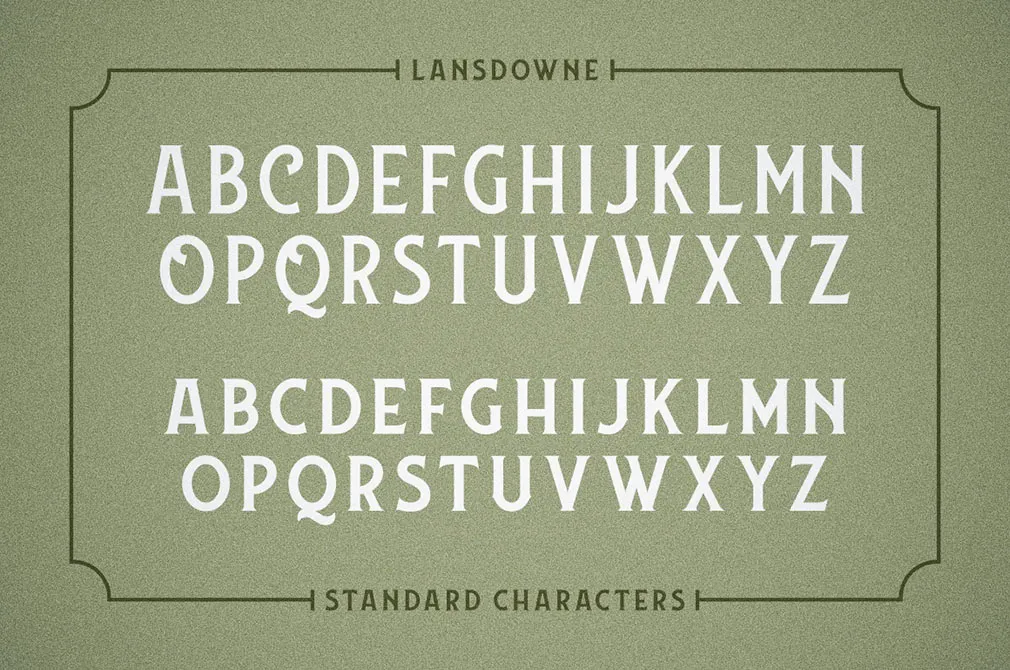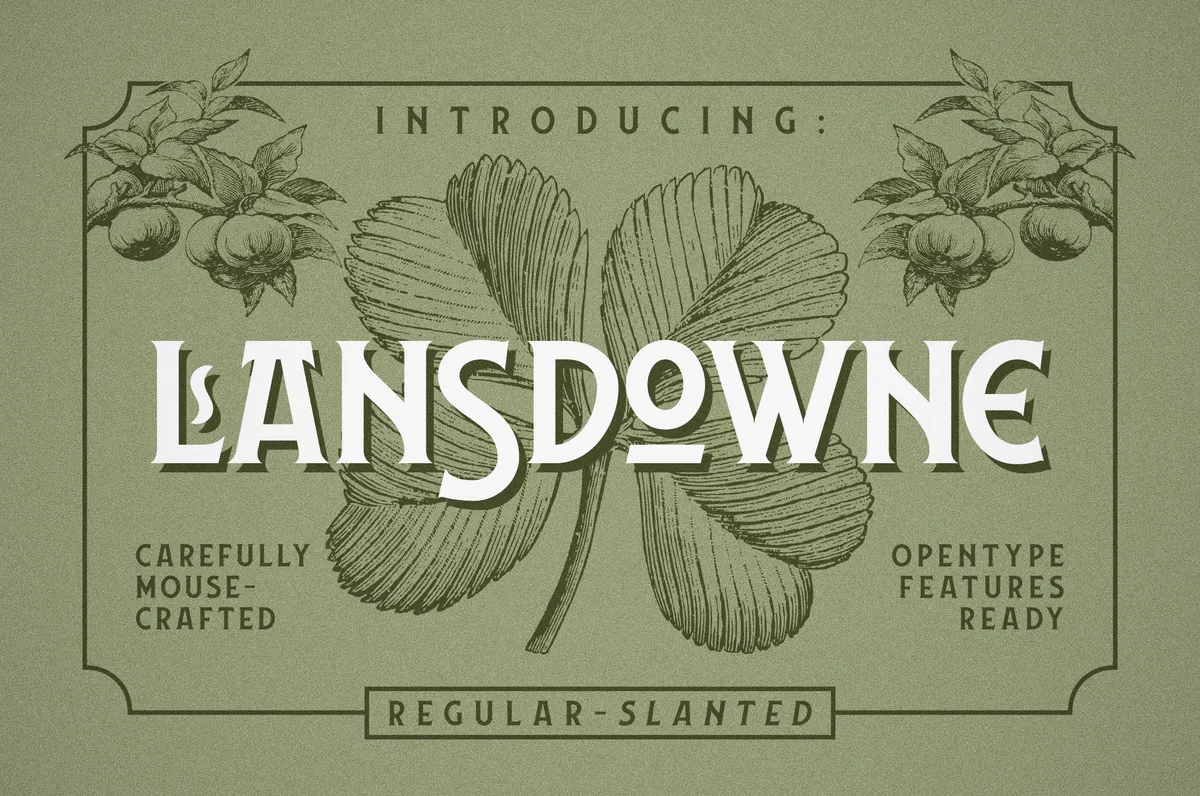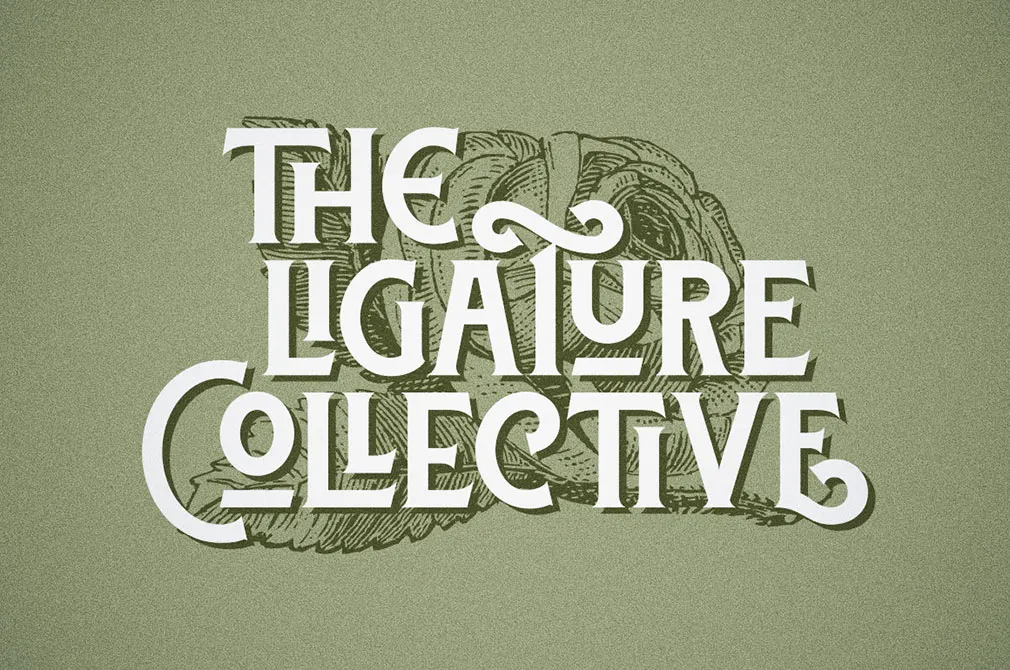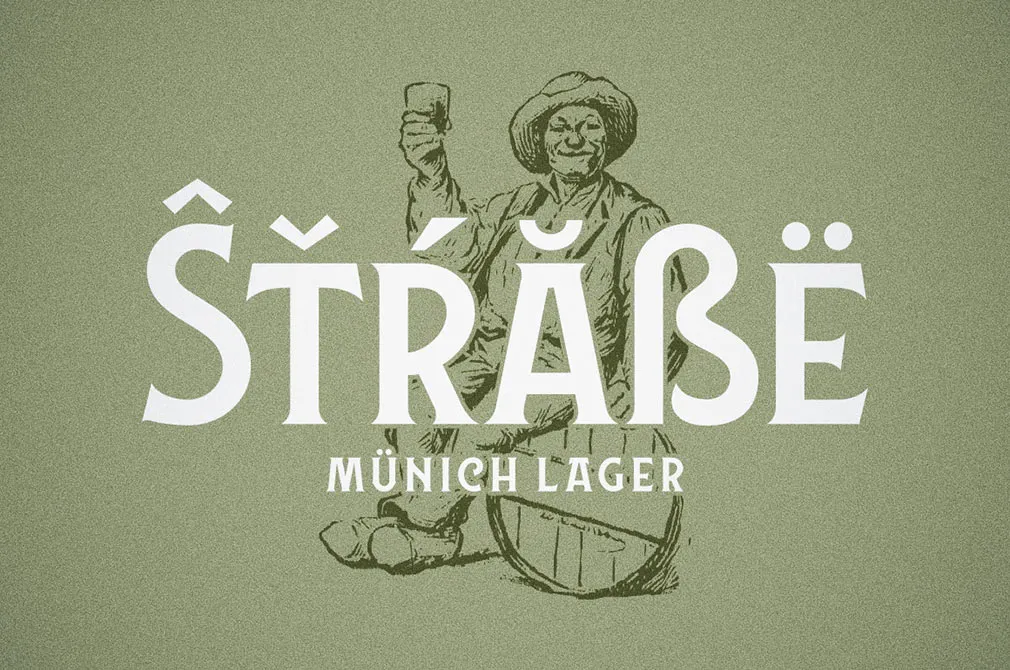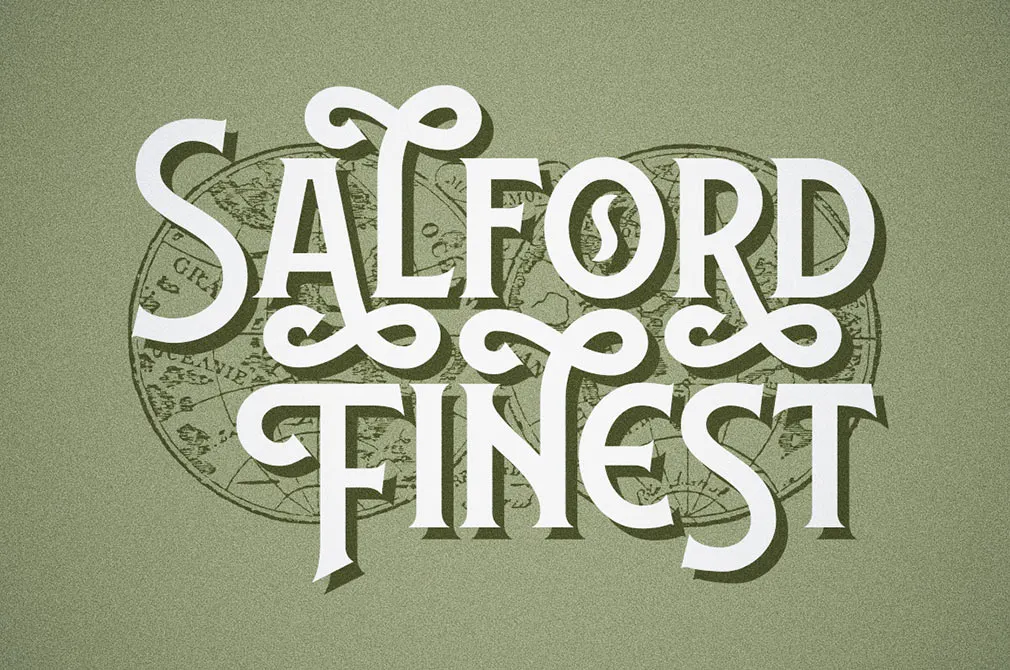
Lansdowne Decorative Font
Introducing the perfect blend between clean and vintage themed type work, inspired by the old advertisement letters. Crafted to quench your hunger for the versatile typeface.
This OpenType font features 470+ glyphs give you strong, sharp, yet clean feel without sacrificing its vintage and classic touch. You get to work with upper and lowercase characters, numeral and punctuations, and multilingual characters. Carry out logos, headlines, posters, labels, printouts, and invitations which everyone will surely love!